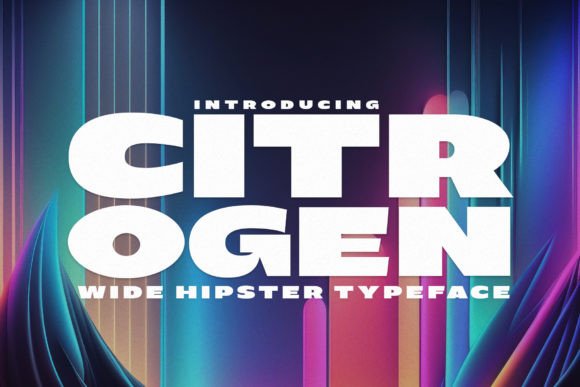
Dive into the world of modern typography with Citrogen Font, a masterpiece crafted by HipFonts. This sans serif font captivates with its bold and clean lines, exuding a sleek and contemporary aura. Whether you're a graphic designer seeking to make a statement or a creative entrepreneur looking to elevate your brand, Citrogen Font is the perfect choice.
Citrogen Font possesses an inherent power that demands attention. Its strong and bold appearance ensures that your message cuts through the noise and resonates with your audience. Picture your designs adorned with Citrogen Font, captivating your audience with its crisp and confident strokes. This font is not merely a visual element; it's a statement of intent, a declaration of boldness, and a testament to your commitment to excellence.
Unleash your creativity with Citrogen Font, the ultimate tool for creating stunning posters that demand attention. Its bold lines and clean design make it the perfect choice for conveying powerful messages and grabbing the attention of passersby. Imagine your posters adorned with Citrogen Font, standing out from the crowd with their bold and confident presence. This font will transform your posters into captivating works of art, leaving a lasting impression on your audience.
Craft packaging designs that exude sophistication and elegance with Citrogen Font. Its clean and modern aesthetic will make your products stand out on shelves, attracting customers with its understated charm. Picture your packaging adorned with Citrogen Font, whispering promises of quality and excellence to potential buyers. This font will elevate your packaging designs, transforming them into miniature masterpieces that captivate and entice.
Establish a brand identity that radiates confidence and modernity with Citrogen Font. Its strong and bold appearance will make your brand stand out from the competition, leaving a lasting impression on customers. Imagine your branding adorned with Citrogen Font, conveying a sense of professionalism and trustworthiness. This font will become an integral part of your brand's DNA, reflecting your commitment to quality and innovation.